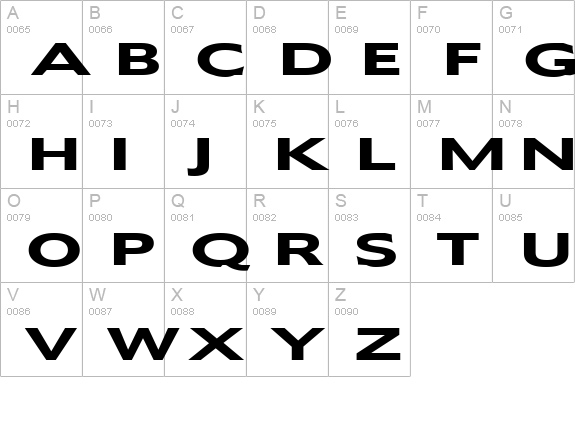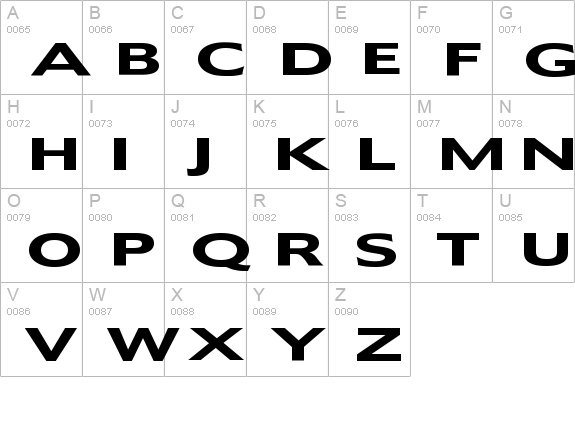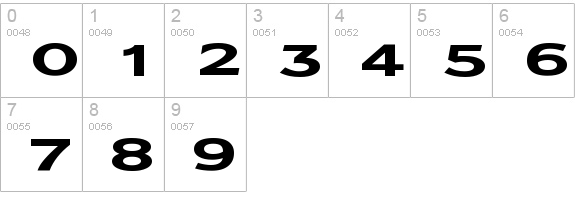
Adams Extended Bold Font Details
Adams Extended Bold is a strong, high-contrast, extended-width variant in the Adams typeface family \xE2\x80\x94 well suited to headlines, attention-grabbing titles, and strong calls-to-action.
Adams Extended Bold font is a striking and impactful typeface that exudes confidence and modernity. With its bold and extended design, this font is perfect for making a strong statement in headlines, titles, and branding materials. The clean lines and sharp edges of Adams Extended Bold give it a sleek and professional look, making it ideal for a wide range of design projects. Best of all, Adams Extended Bold font is available for free download at FontsMarket.com. Whether you're working on a poster, website, or logo design, this versatile font is sure to make a bold impression. Don't miss out on the opportunity to elevate your designs with Adams Extended Bold font, now freely accessible for your creative projects.